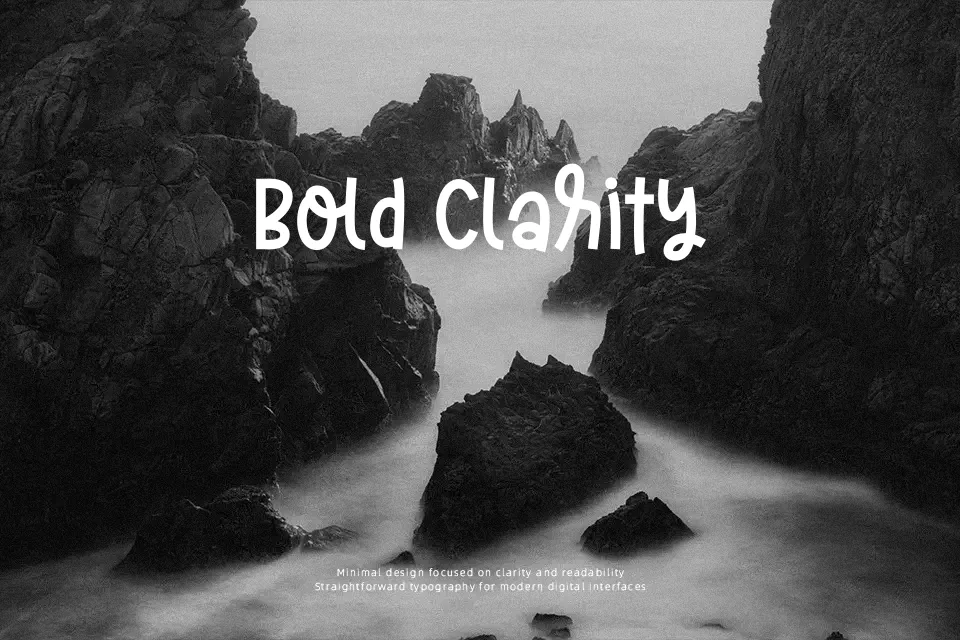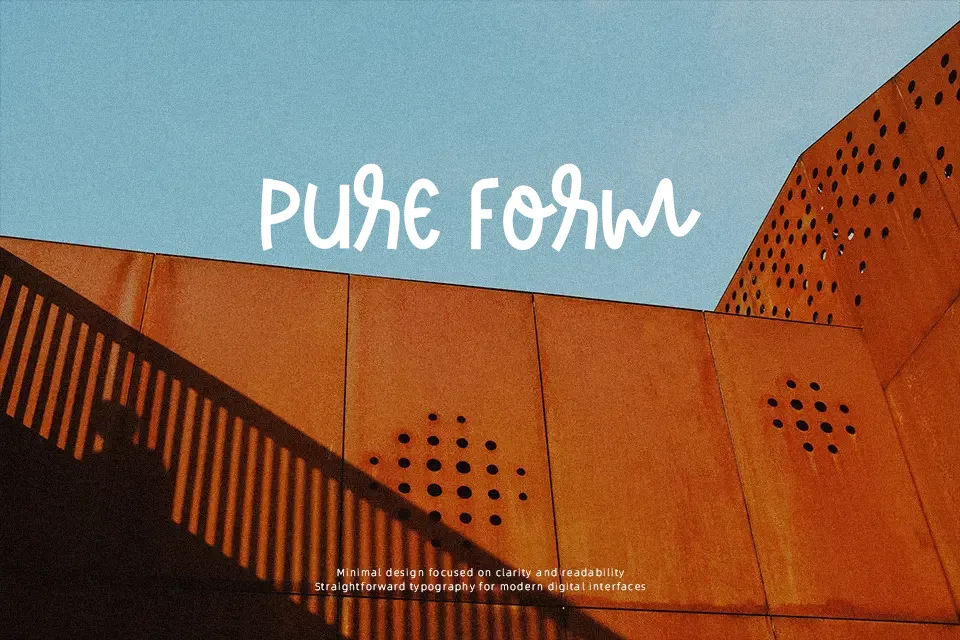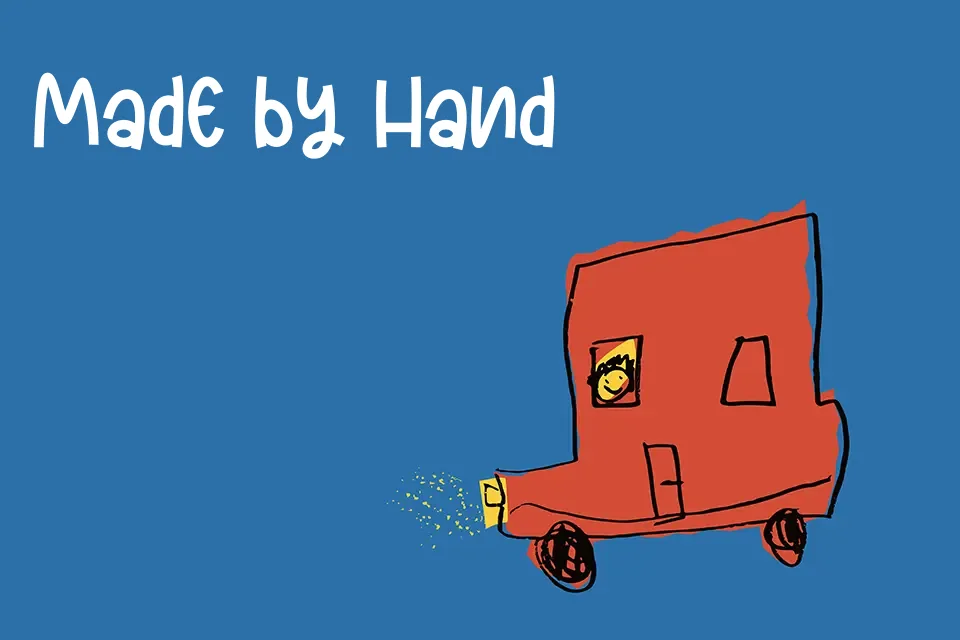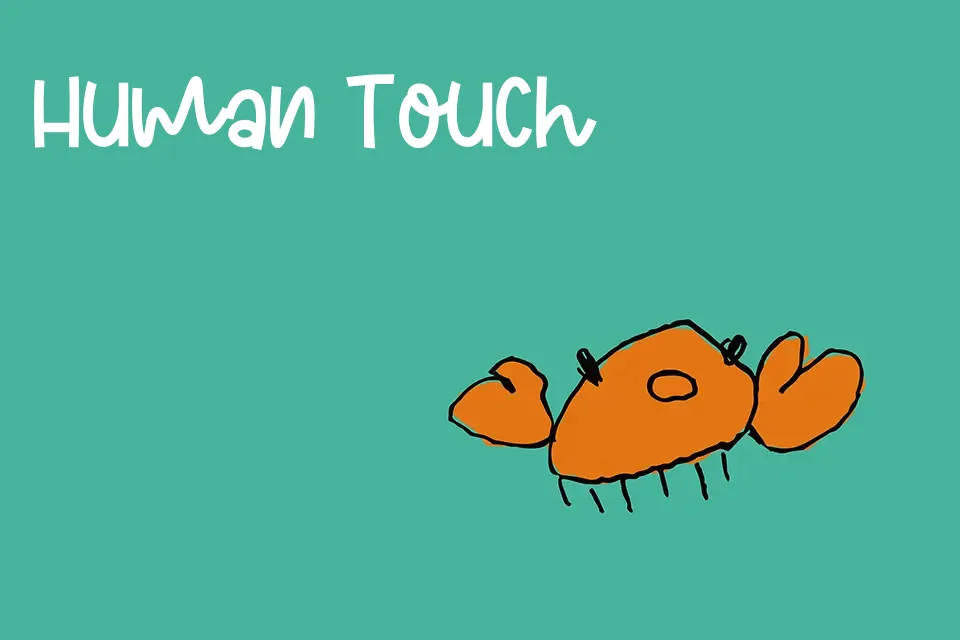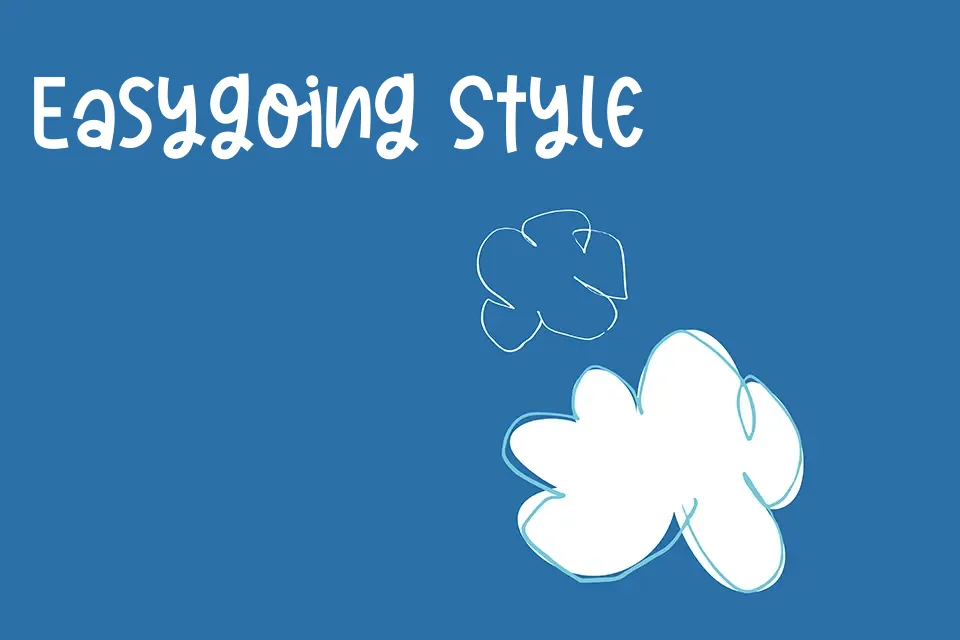
Baby Bloom Font
Baby Bloom leans into loose, rounded strokes and slightly uneven rhythm, giving each letter a casual, childlike motion rather than a rigid script structure. Counters stay open and spacing is generous, so short phrases like product names, party titles, or kids’ slogans remain easy to scan even at display sizes. The overall impression is friendly and informal, which works especially well on children’s branding, toyshop signage, birthday invitations, and playful poster headlines. It struggles, however, in dense paragraphs or serious corporate layouts, where the quirky shapes can feel distracting and reduce readability over long text blocks.
birthday and baby shower invitations
playful branding for toy or craft shops
data-heavy presentations or reports
minimalist user interfaces
Perfect for branding, headline, and kids, with a creative and cartoon style.